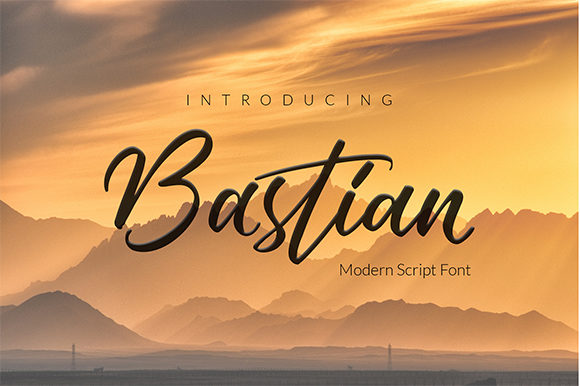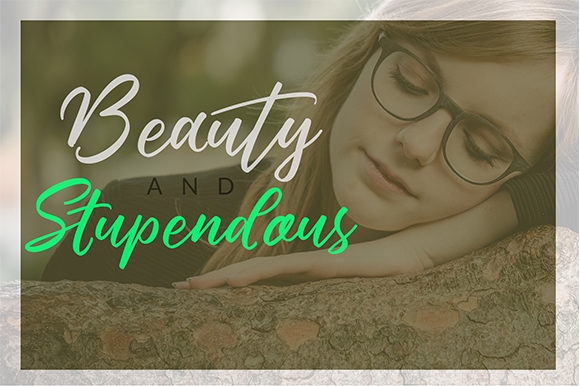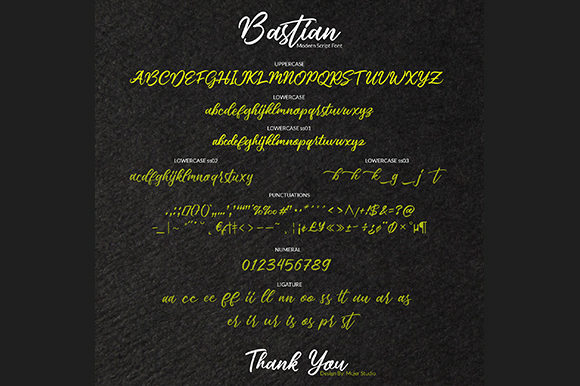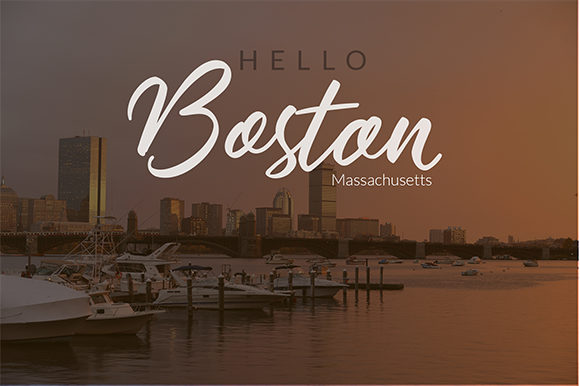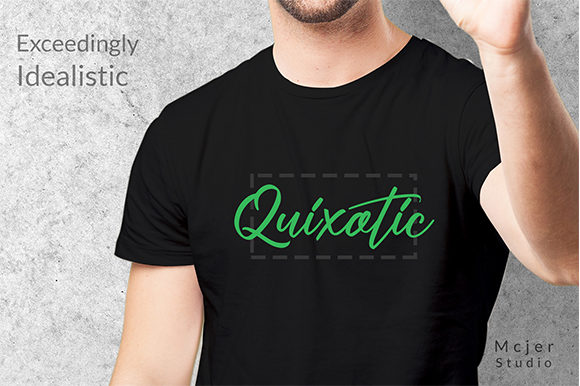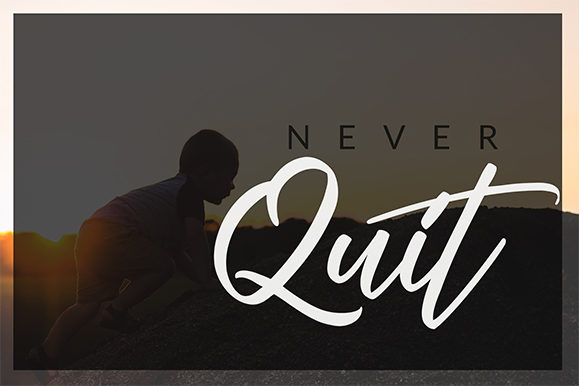
Bastian Font
About Bastian Font
The Bastian is an amazing handmade script, created with a brush pen. It’s perfect for logos, wedding stationary, business cards, magazines, gift cards, cloth, t-shirts, menu’s, brands, and much more!